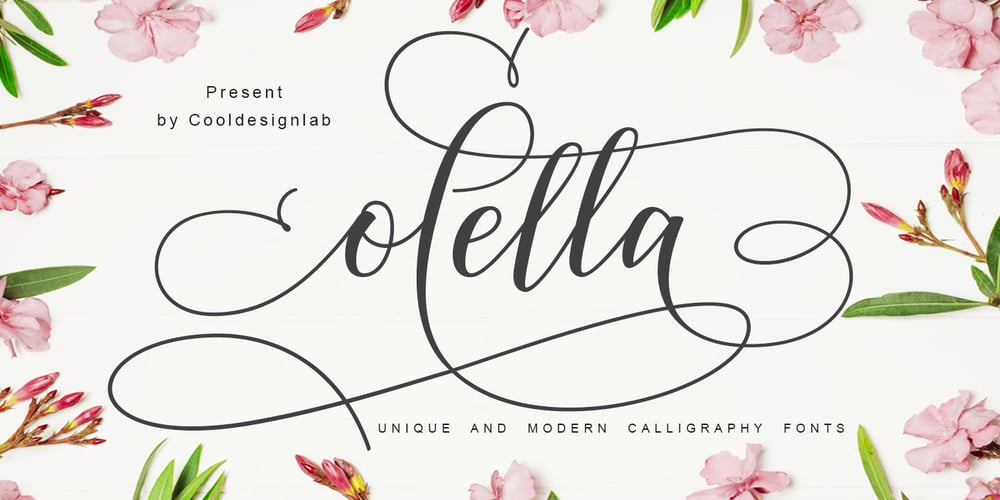
Olella
Olella font
Olella Font Family was designed by Kurniadi Saputra and published by Cooldesignlab. Olella contains 1 styles and family package options. Introducing a new modern calligraphy font – Olella. This gorgeous script is for those who need some elegance and style for their designs and is perfect for wedding invitations, date cards and feminine branding.Olella includes the full set of Basic Characters, Numbers, and Lowercase Punctuation. Also contains binders and many stylistic alternatives to perfectly recreate natural calligraphy (check the preview to see all of them). You can check your language typing characters in the text box below.If you have any questions regarding my products, feel free to write a message or contact me via email cooldesignlab@gmail.com.Thank you very much for visiting my shop!